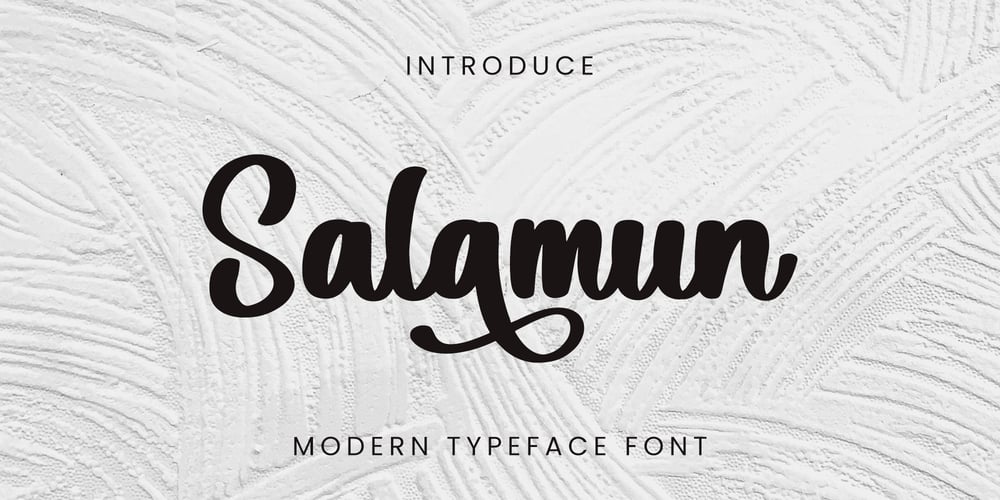
Salamun
Salamun font
Salamun Font Family was designed by Dhoni Trihatmoko and published by Ayska. Salamun contains 1 styles and family package options. Introducing “Salamun” – A pretty vintage display font. This font is suitable for all your creative designs. With a modern style and smooth curves, this font will beautify your creations both in digital and printed forms such as invitations, banners, advertisements, websites, letterheads, packaging products, brochures, social media and more.